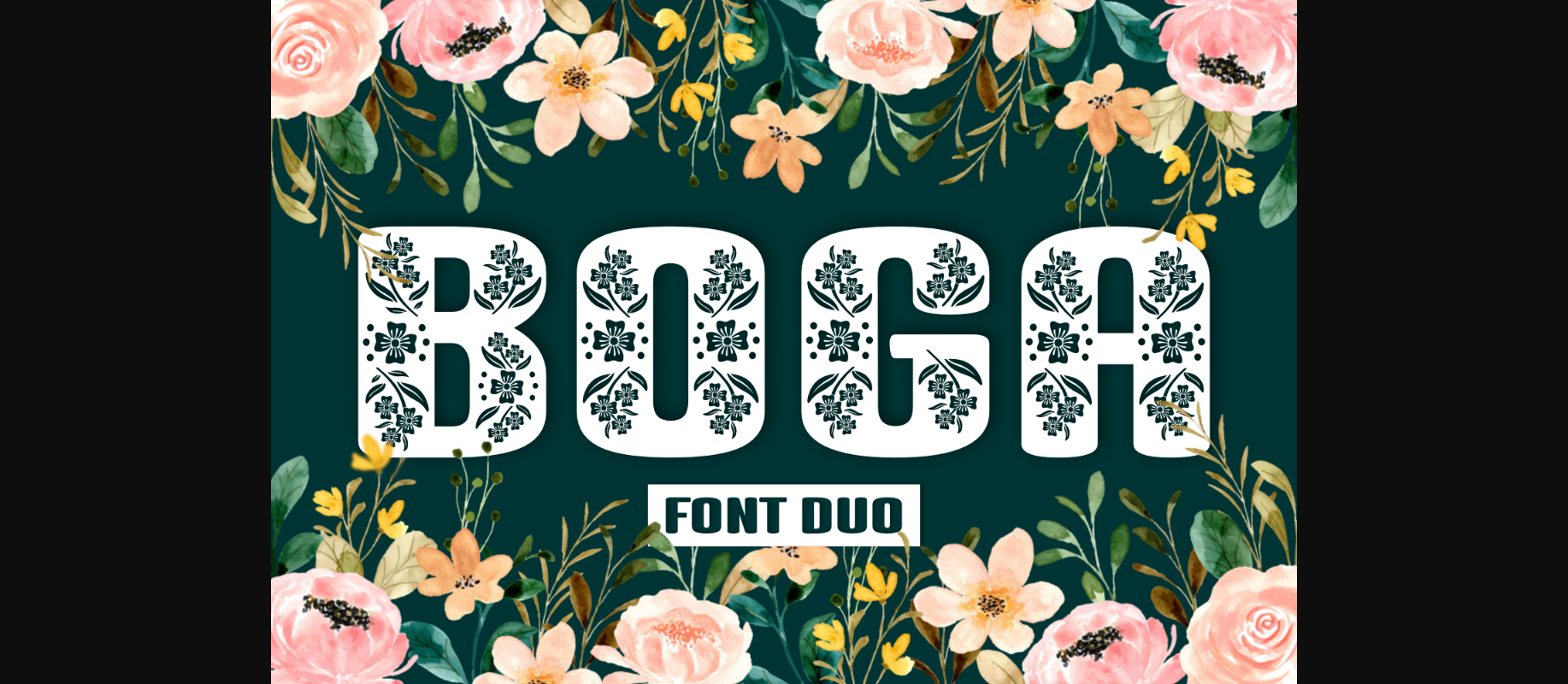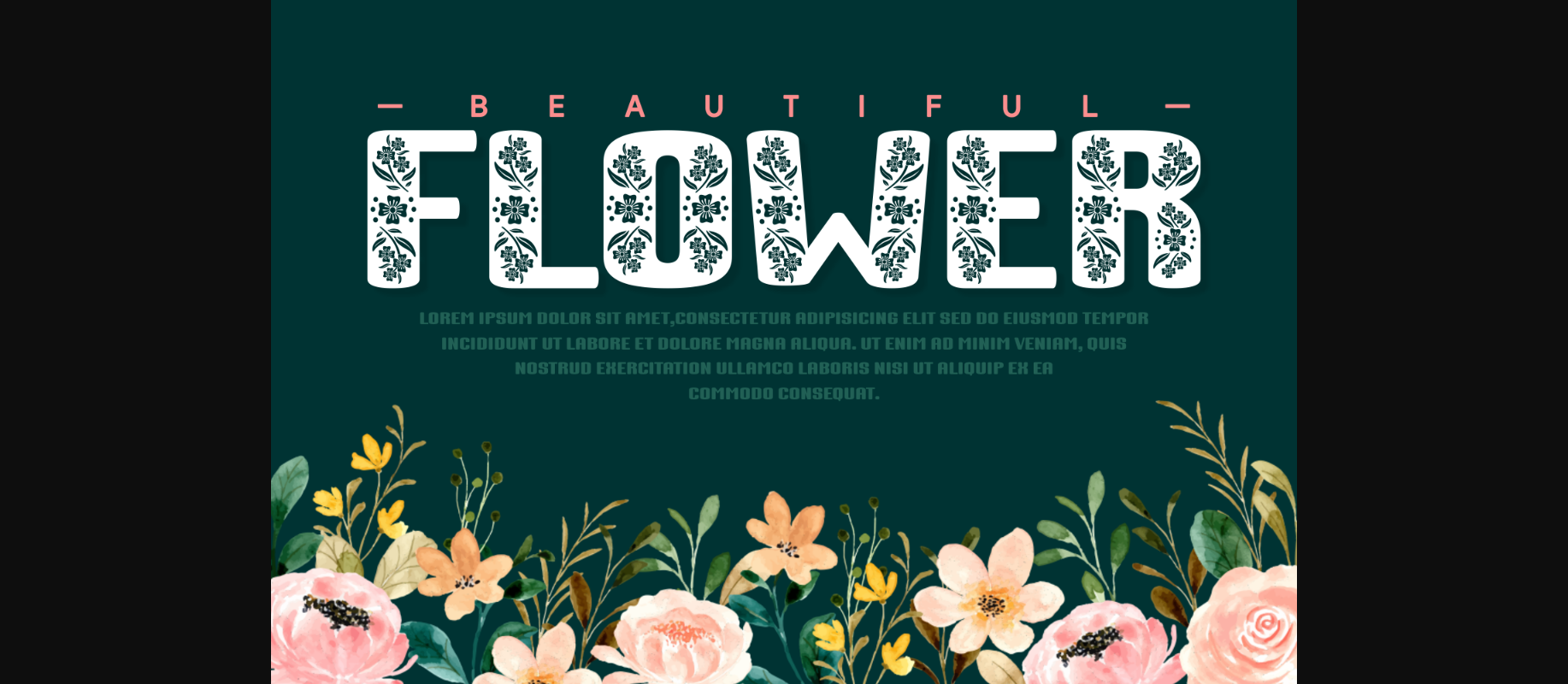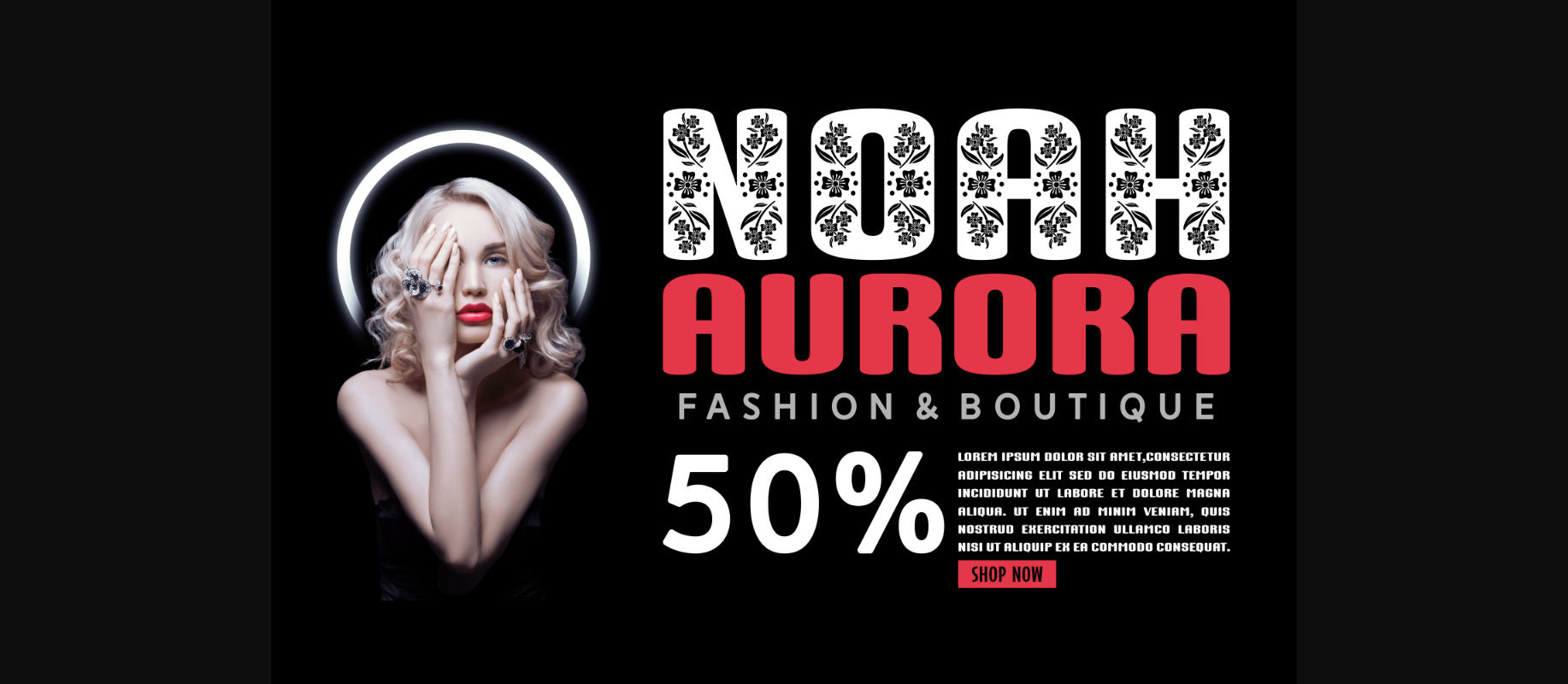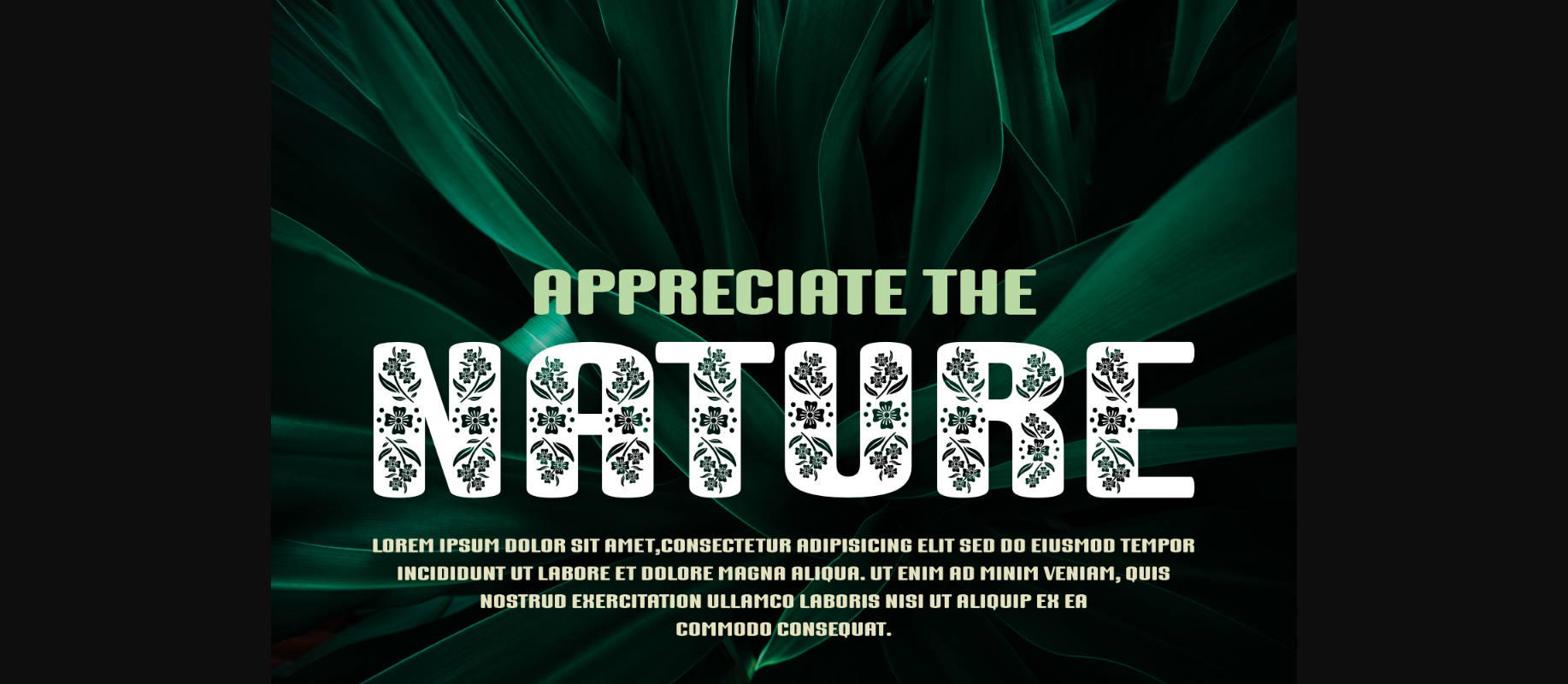
Boga Font
About Boga Font
Boga is a floral decorative font that adds a touch of nature to your projects, which is great with headers, logos, posters, and many more.